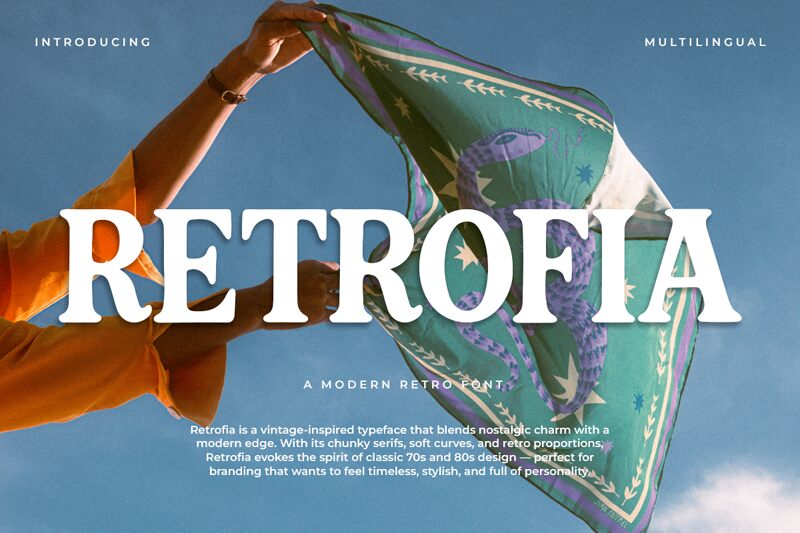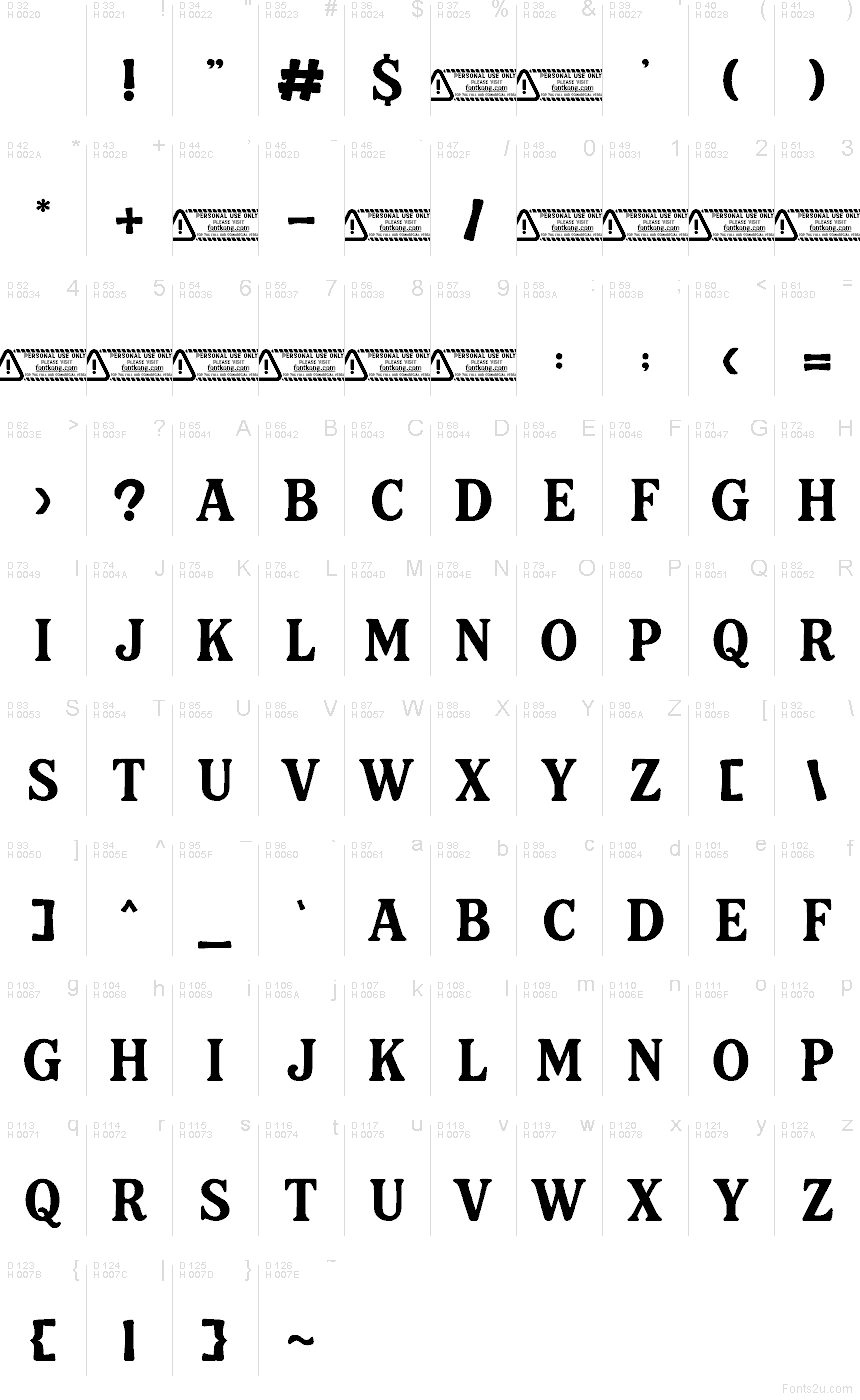
Retrofia by Kong Font is a free retro serif with stately caps, flared strokes, and a warm, poster-era voice. The letters lean on broad curves and sharp wedge-like details that give the font an old print feel without turning fussy.
It fits naturally in vintage branding, cafe menus, magazine cover lines, title cards, and packaging where a classic headline needs some ceremony. As a free font, Retrofia also works well for monograms and short display settings, because those large, sculpted caps carry plenty of character before you add anything else.